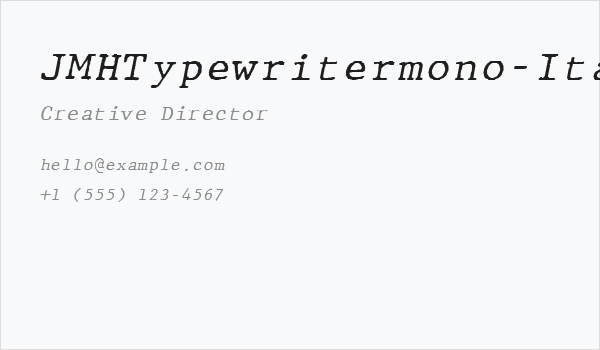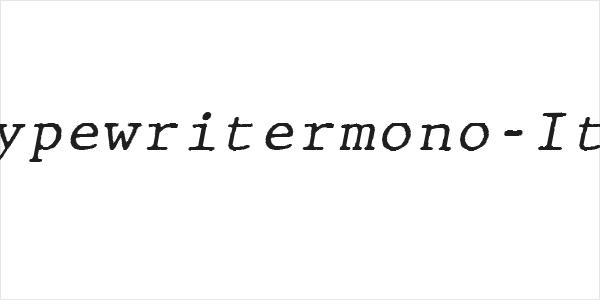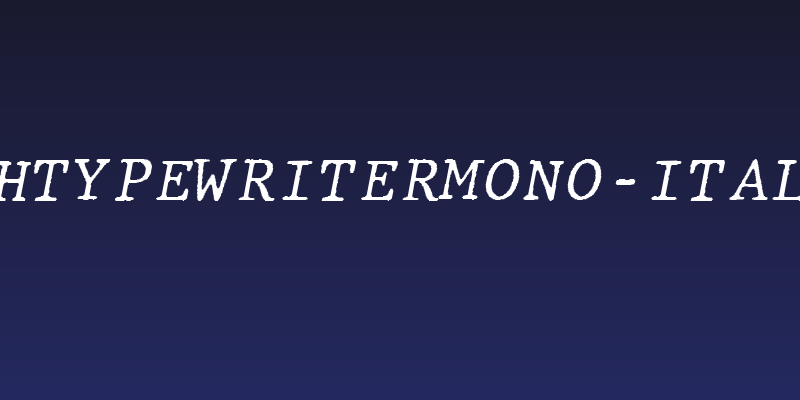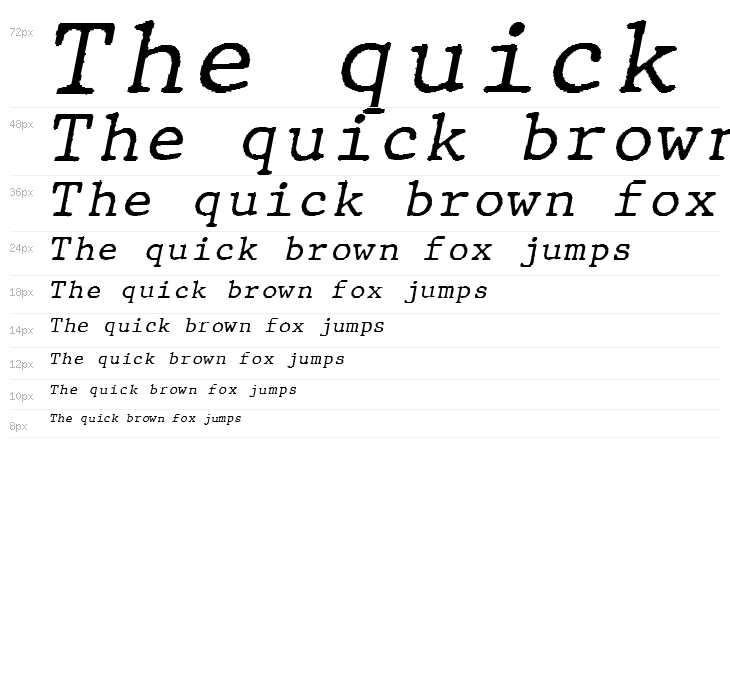
JMHTypewritermono-Italic Font
JMHTypewritermono-Italic Description
This typeface exudes a classic typewriter aesthetic with a modern twist. Each character is monospaced, ensuring uniformity in width, which is characteristic of traditional typewriter fonts. The italic style adds a dynamic and slightly informal touch, making it versatile for various design needs. The strokes are consistent, with medium contrast, providing a clear and readable appearance. The font includes a full set of uppercase and lowercase letters, numbers, and a range of special characters, making it suitable for comprehensive text applications.
| Use Case | Headlines, Body text, Coding interfaces |
| Proposed Projects | Ideal for projects that require a vintage or retro feel, such as typewriter-themed designs, coding interfaces, or creative writing projects. |